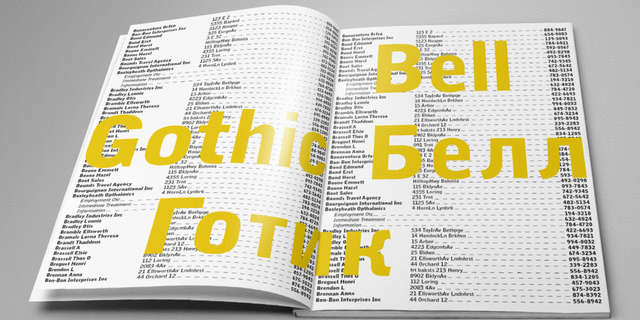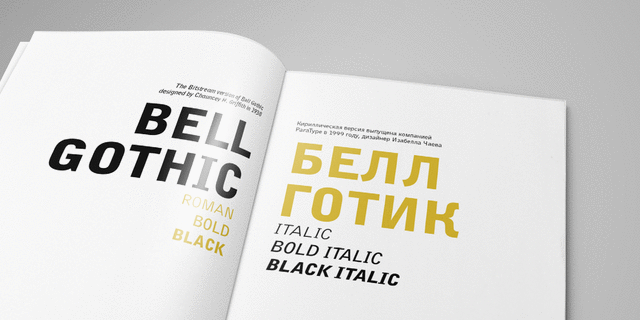
Bell Gothic (6 fonts)
About Bell GothicThe Bitstream version of Bell Gothic designed by Chauncey H. Griffith in 1938 for telephone directories of the Bell Telephone Company. It is a good Sans Serif choice for listings, catalogues and directories due to its space saving. The weight of the line is moderate and uniform. Besides, Bell Gothic is popular now in display and magazine advertising as a clear and easy-to-read font. Cyrillic version was designed by Isabella Chaeva and released by ParaType in 1999. Italic styles were added in 2009 by the same designer.